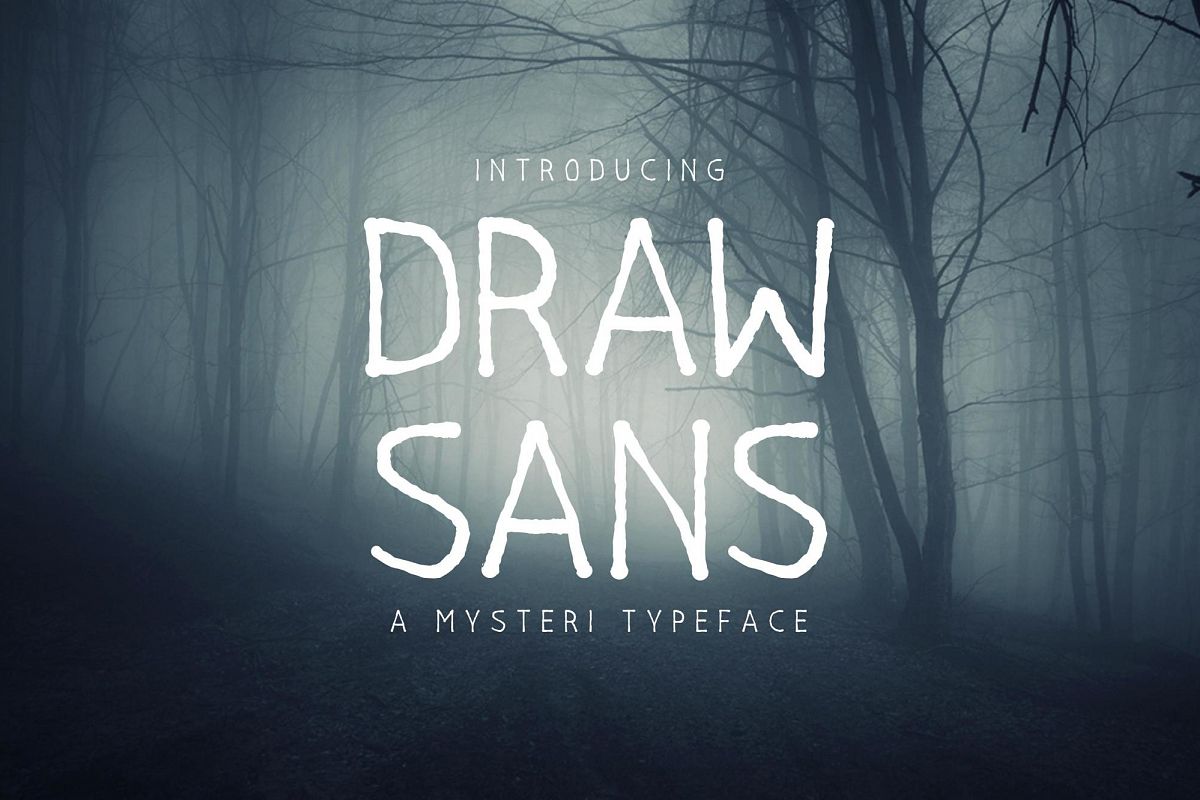
Drawsans Typeface
Drawsans
Drawsans Typeface
Introducing Drawsans Typeface! The mysterious font. A handmade typeface that inspired from hand-drawn lettering and vintage style, suitable for your awesome works (Brands, Poster, Logo, Advertisement, etc)